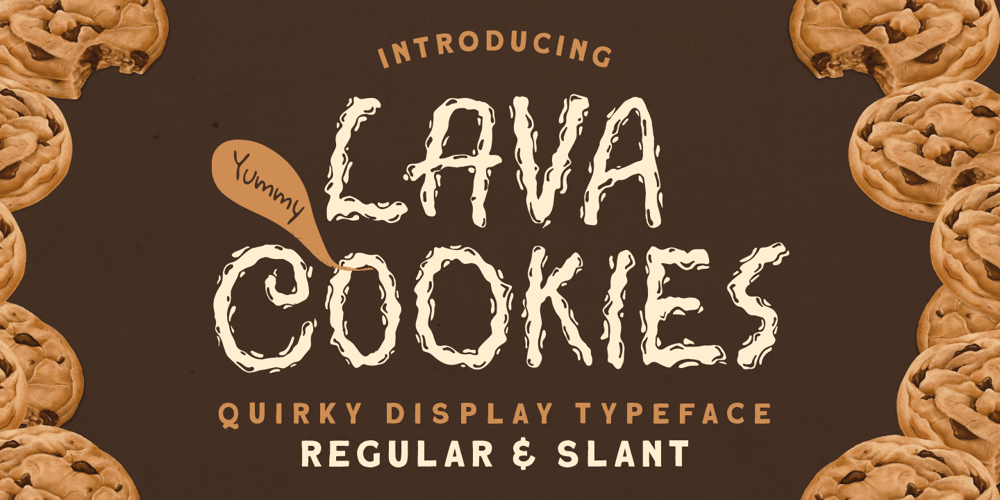
Lava Cookies Font Family was designed by Hendry Juanda and published by Letterhend. Lava Cookies contains 2 styles and family package options. Introducing, Lava Cookies – A quirky display typeface. The unusual quirky style make this font looks great and standout for tittle, branding, logo, packaging, etc.Features : uppercase & lowercase numbers and punctuation multilingual alternates & ligatures PUA encoded We highly recommend using a program that supports OpenType features and Glyphs panels like many of Adobe apps and Corel Draw, so you can see and access all Glyph variations Thank You!